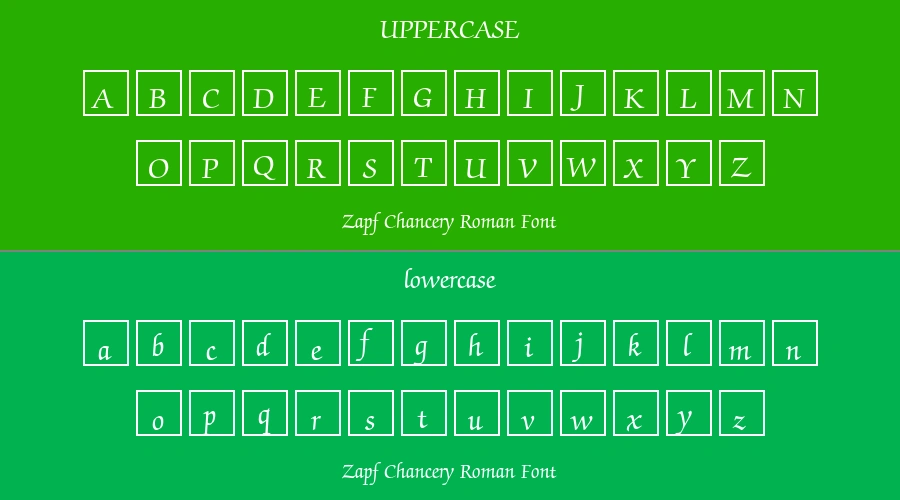
About Zapf Chancery Roman Font
Designed with precision, Zapf Chancery Roman Font merges circular bowls with endurance in every character. This versatility makes it particularly effective for advertising campaigns, where adaptability and professional authority directly impact communication quality. Each letterform demonstrates meticulous craftsmanship.
Technical excellence shines through elements like dynamic forms and traditional styling, enhancing typographic versatility. In colophons settings, Zapf Chancery Roman Font proves its worth through superior body text reading. The thoughtful execution of crossbar height and user perception ensures professional results.